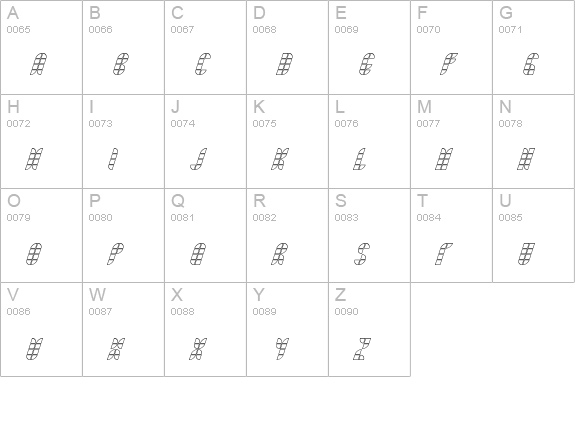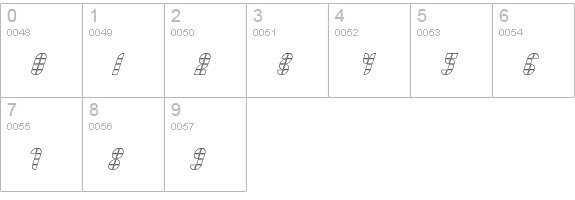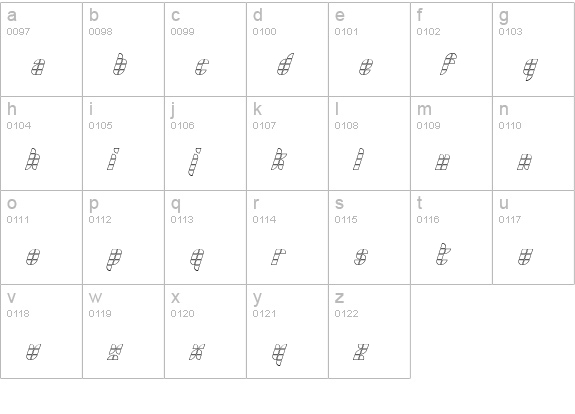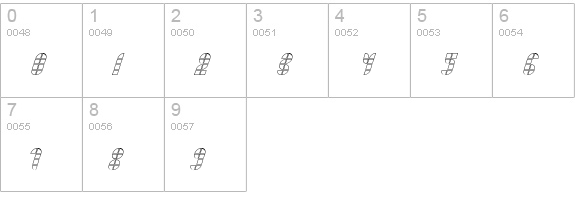
Introducing Bath NormalItalicOutline font, a sleek and modern typeface that effortlessly combines elegance with a touch of creativity. This unique font features a bold outline style with a subtle italic twist, making it perfect for adding a contemporary edge to any design project. The Bath NormalItalicOutline font is versatile and can be used for a wide range of applications, from branding and advertising to social media graphics and website design. Its clean lines and distinctive look will make your text stand out and grab the attention of your audience. Best of all, the Bath NormalItalicOutline font is completely free to download at FontsMarket.com. Take advantage of this amazing offer and enhance your projects with this stylish and eye-catching font today!